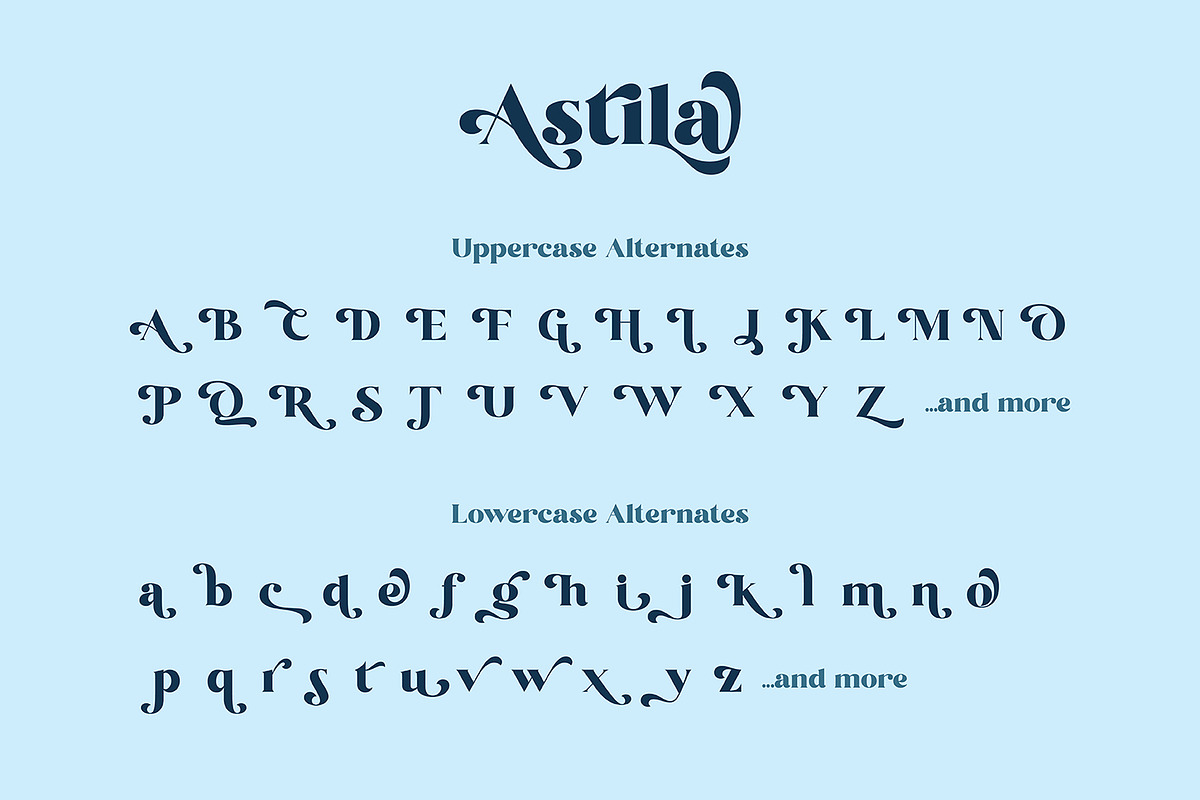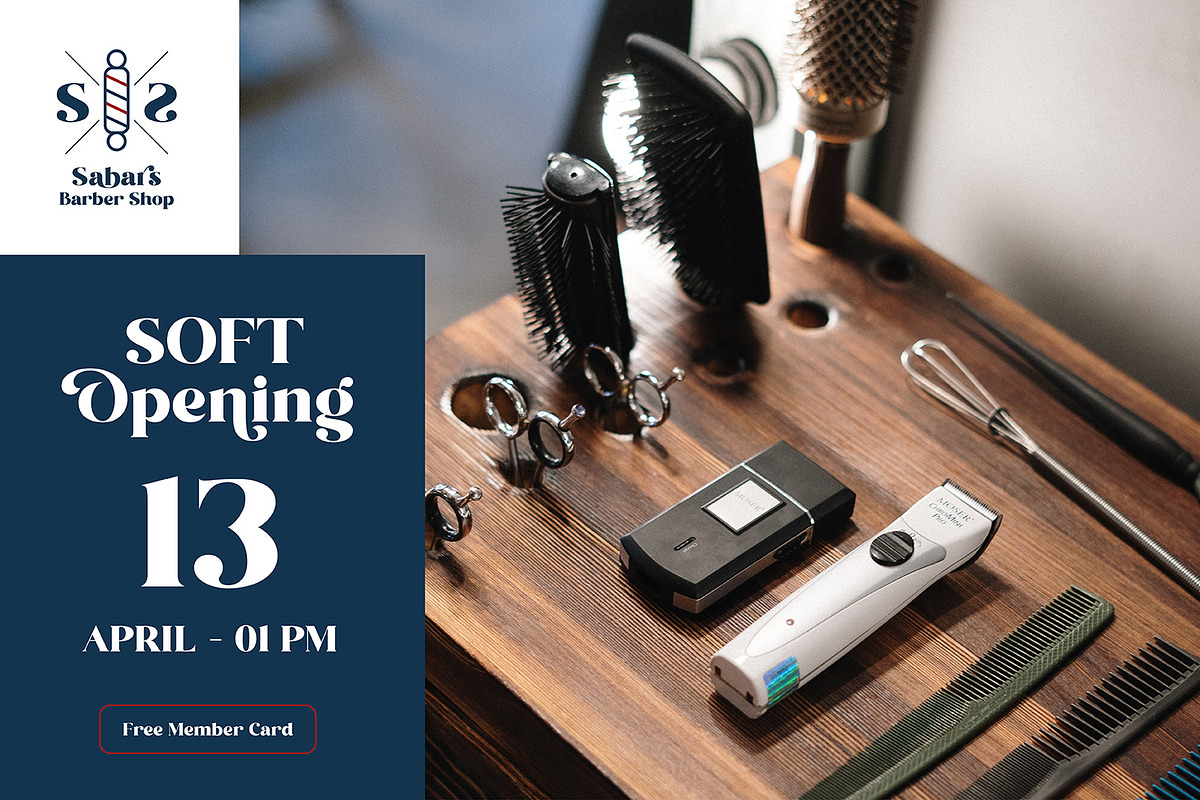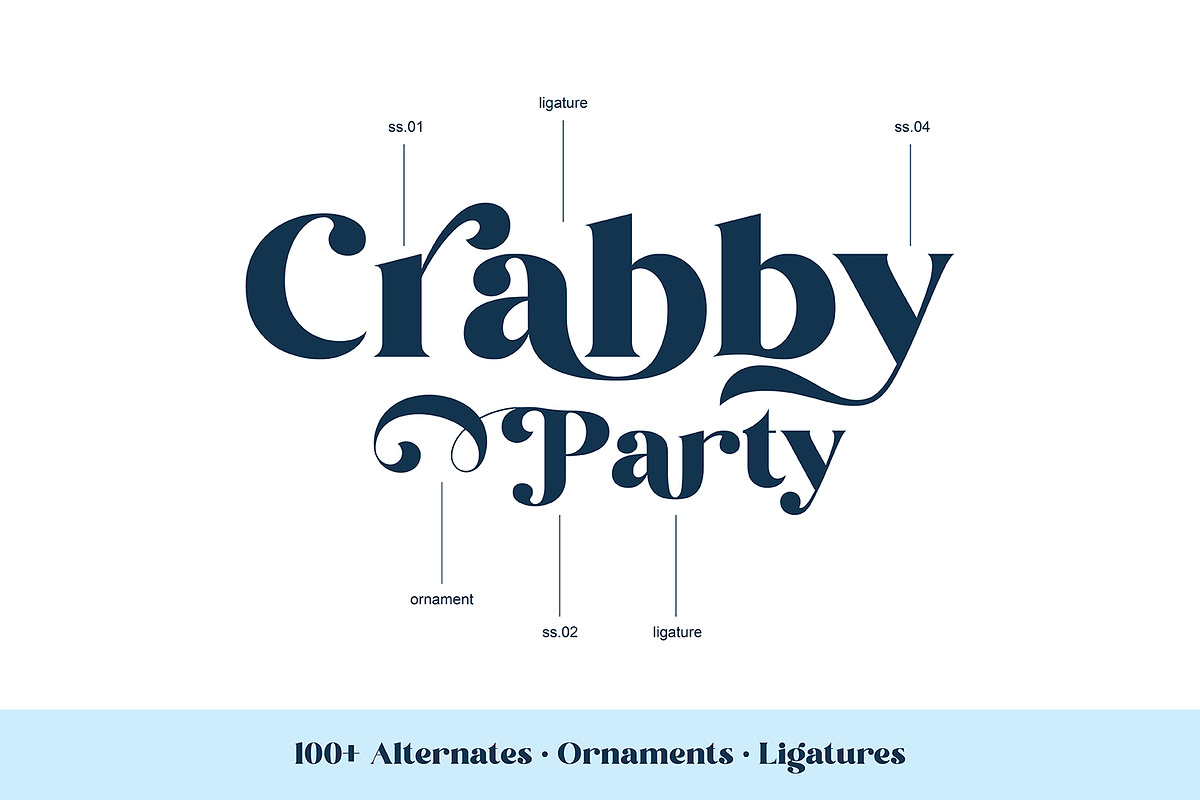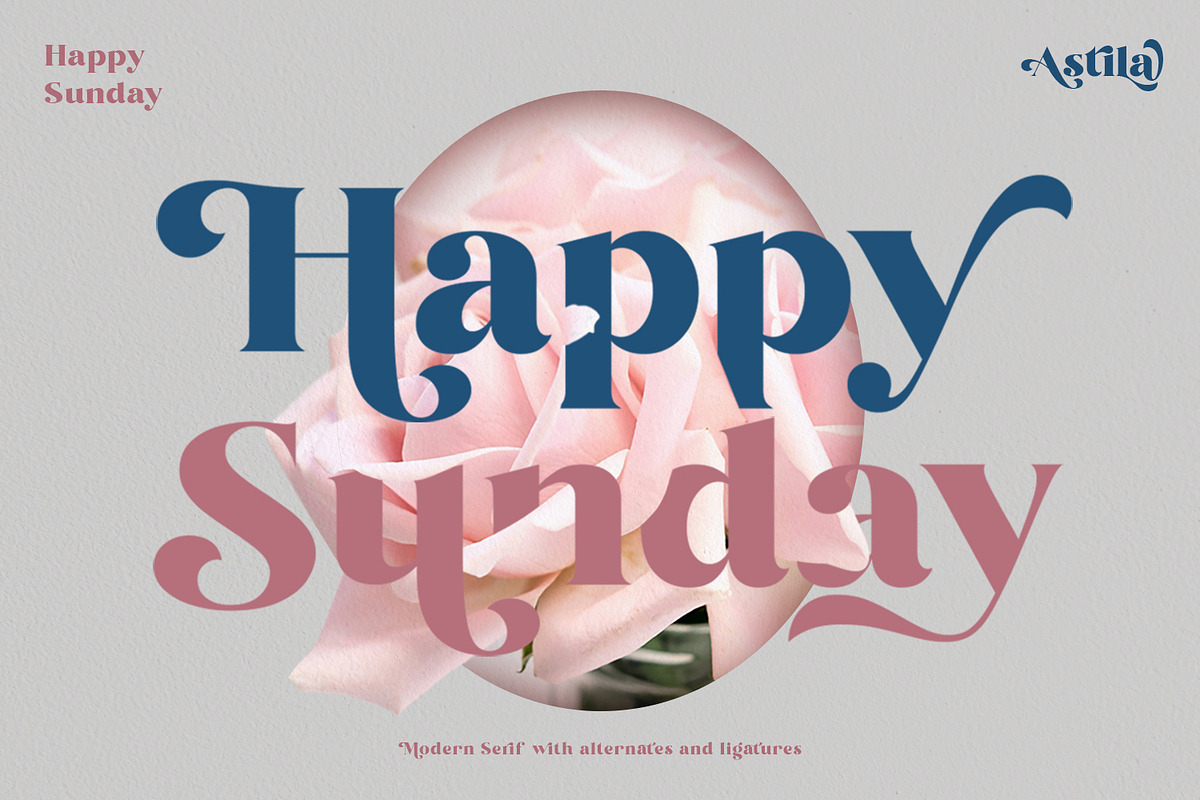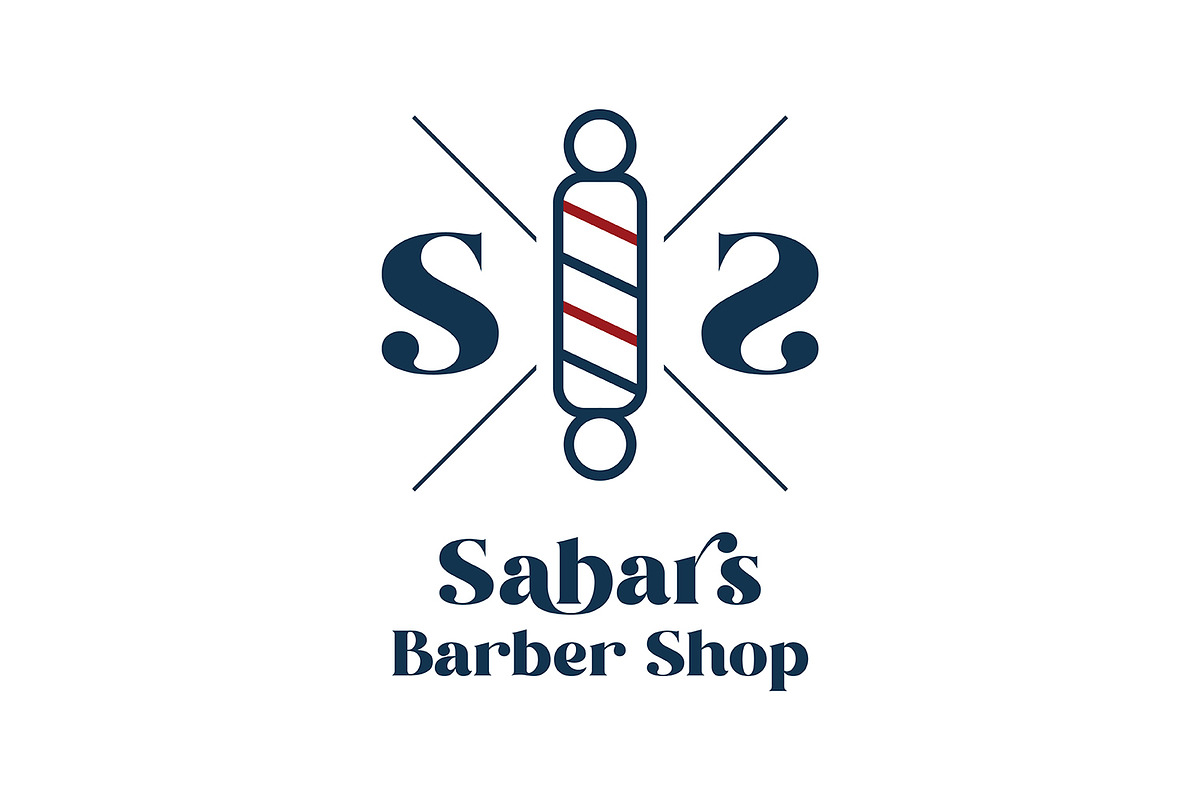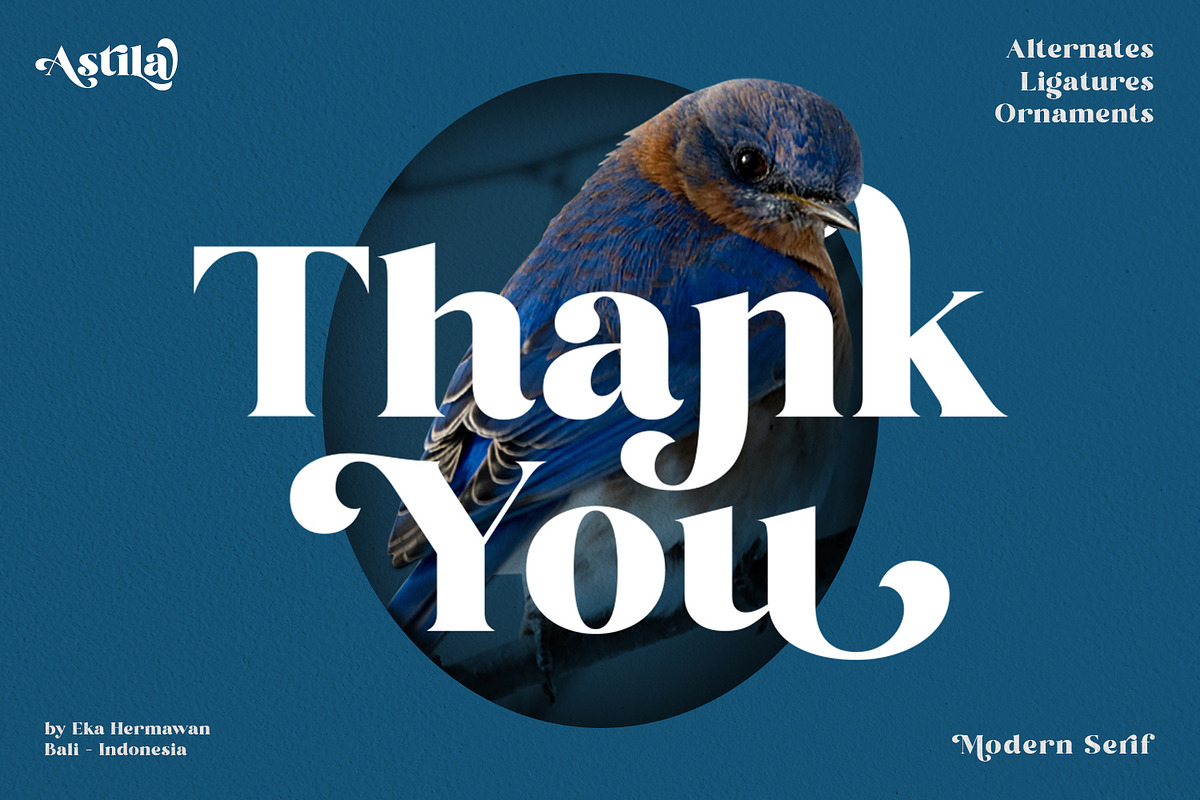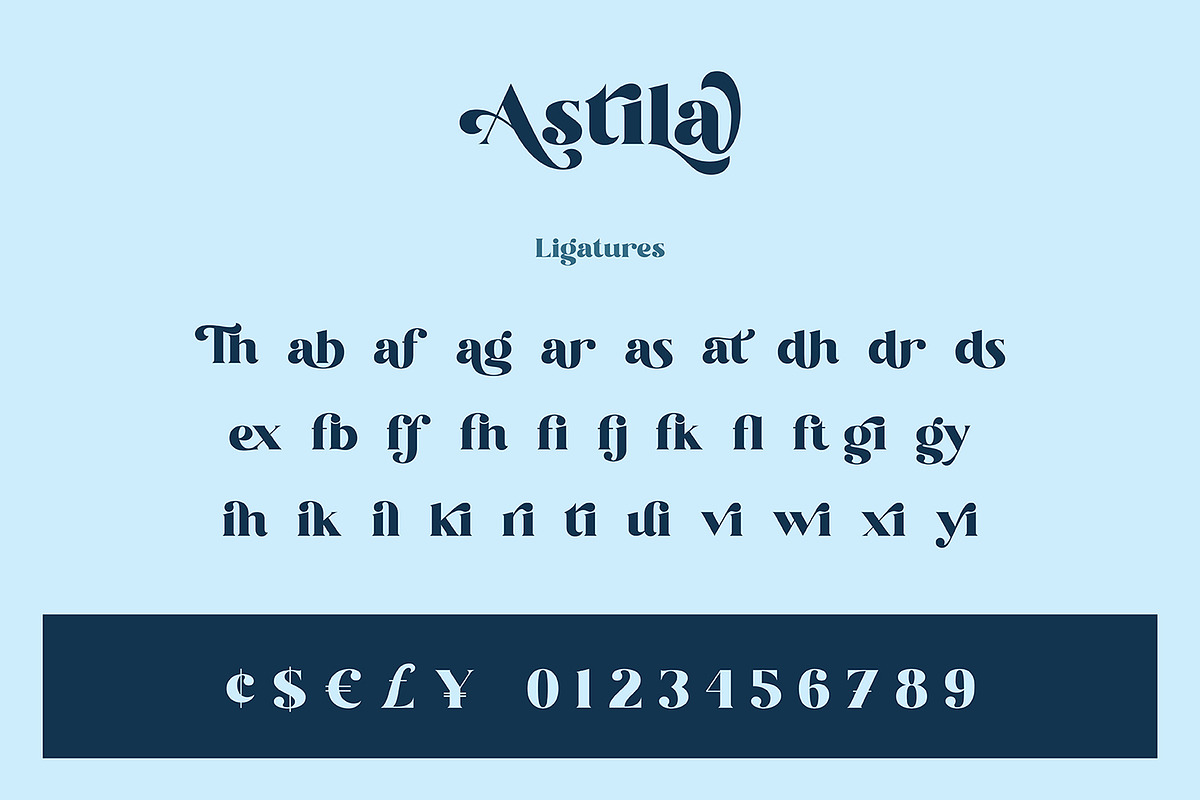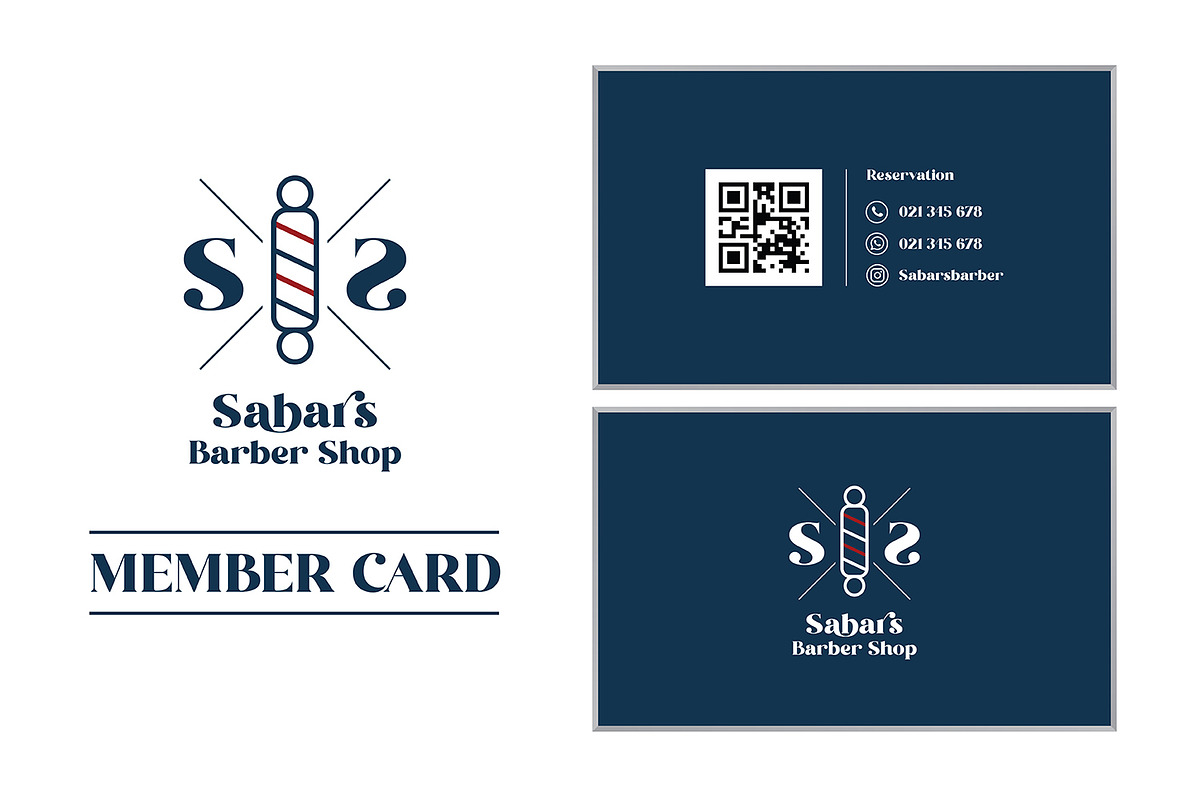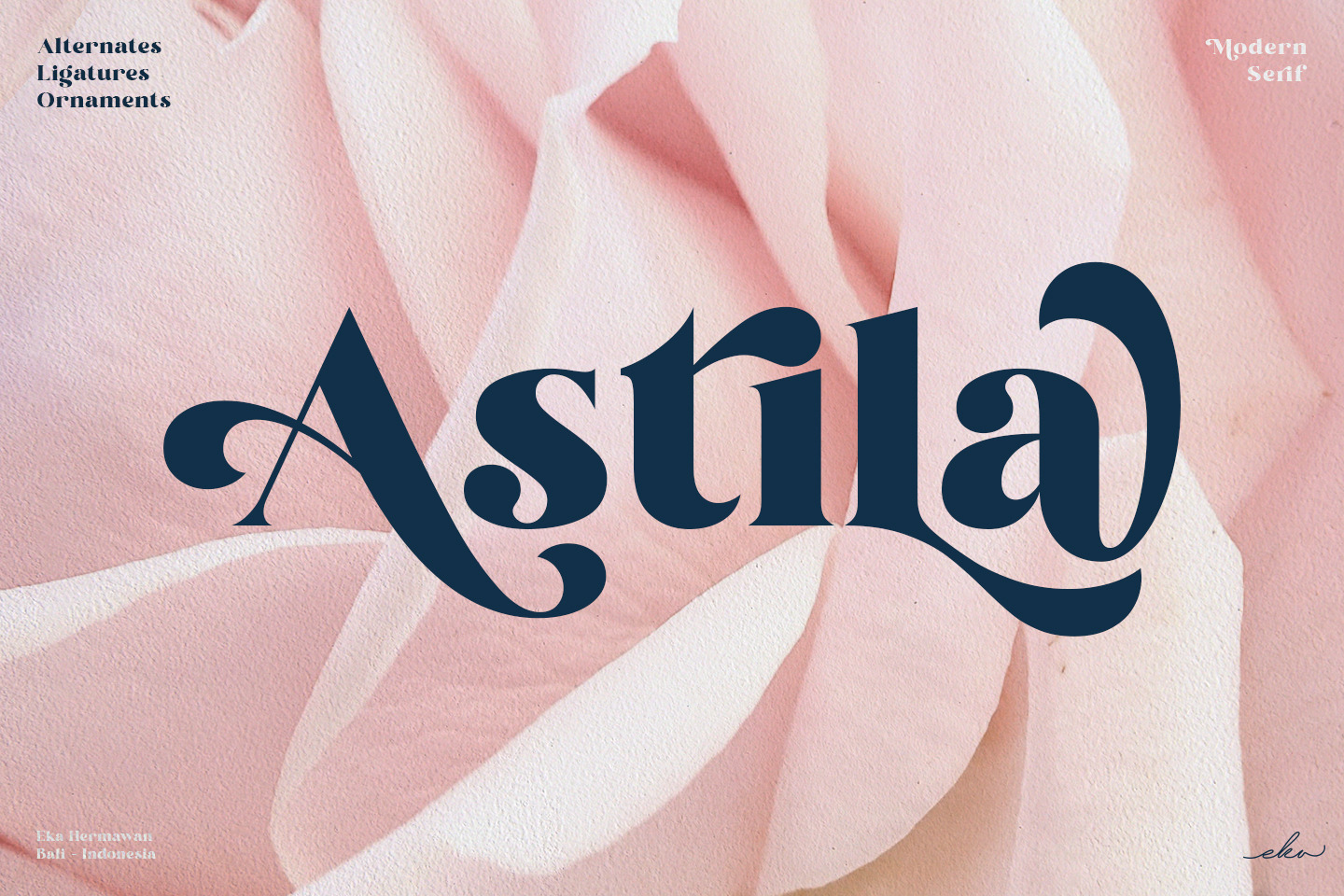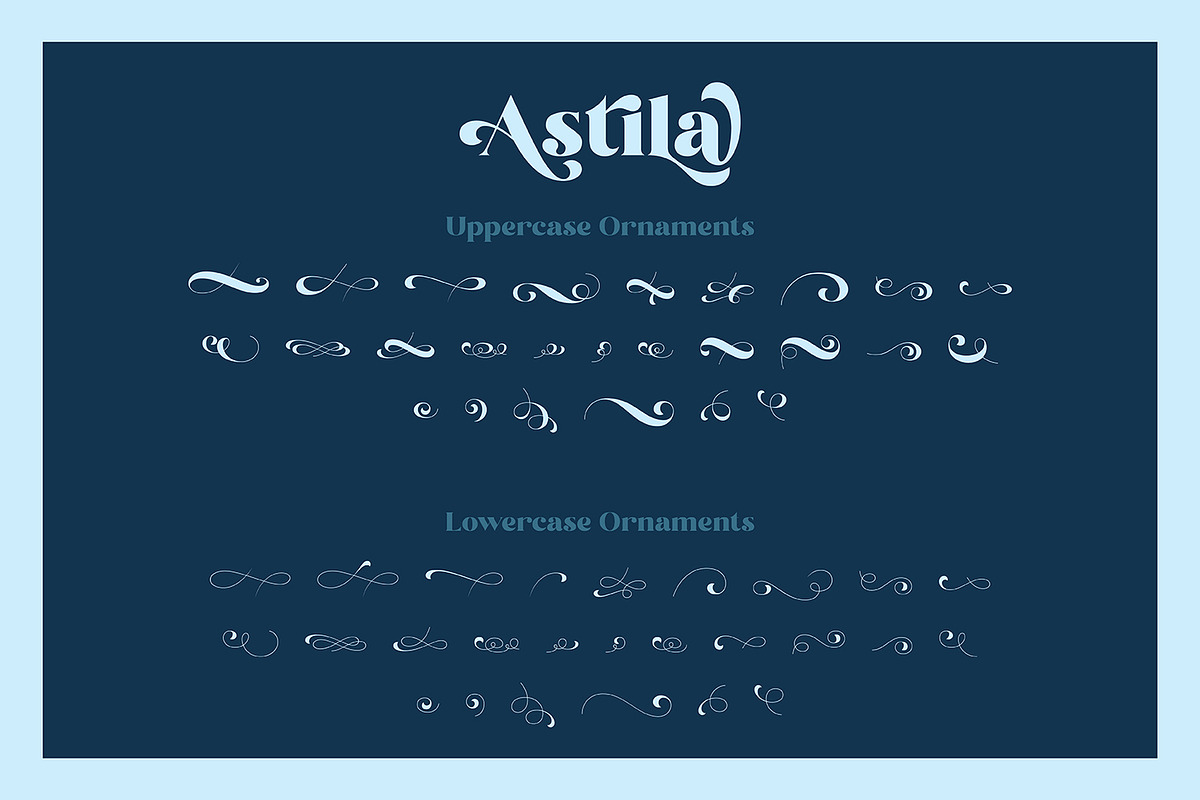
Astila - Modern & Playful Serif Font
Astila is a modern serif font with a bunch of alternates and ligatures characters. Astila is including with more than 100+ alternates characters (PUA Encoded) that give you a wide range of typographic design results. Astila is a versatile font for many different projects such as logo, branding, posters, magazines, label, merchandise, presentation, advertising, cards, quotes and so much more!
Astila also provided Astila Ornament to make your project more beautiful.
- OpenType support
- Playful to use (with ligatures options, alternates options and ornaments)